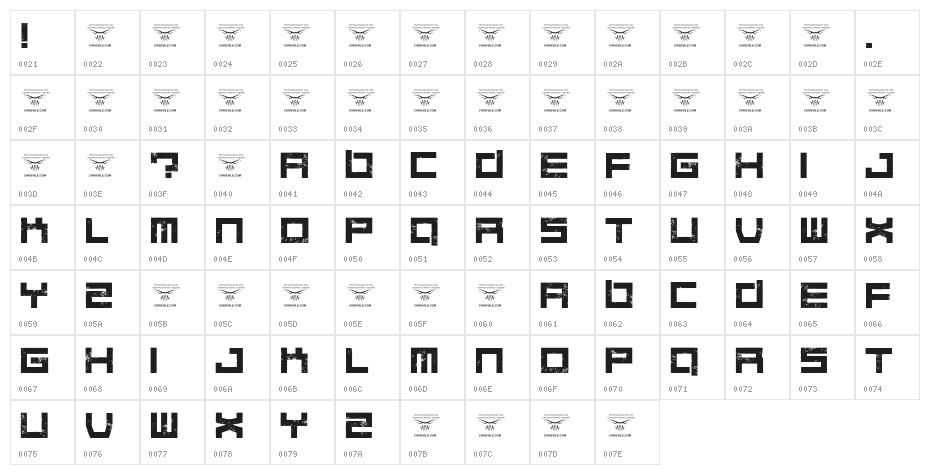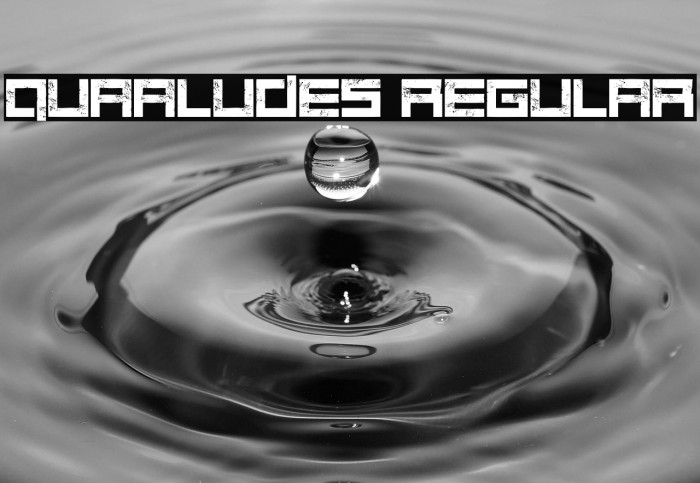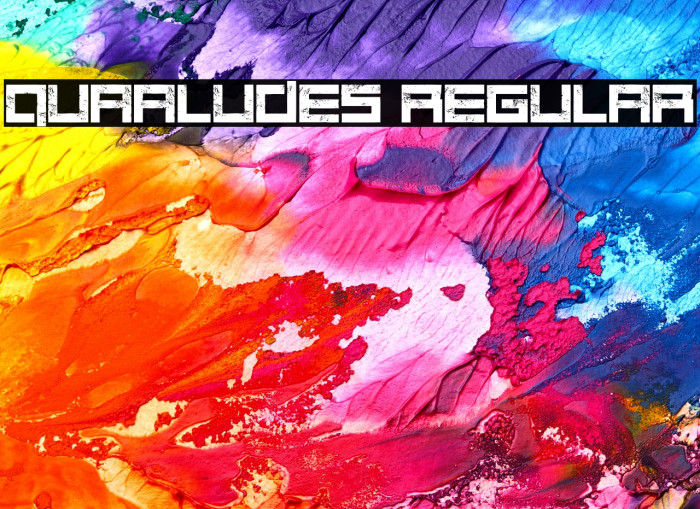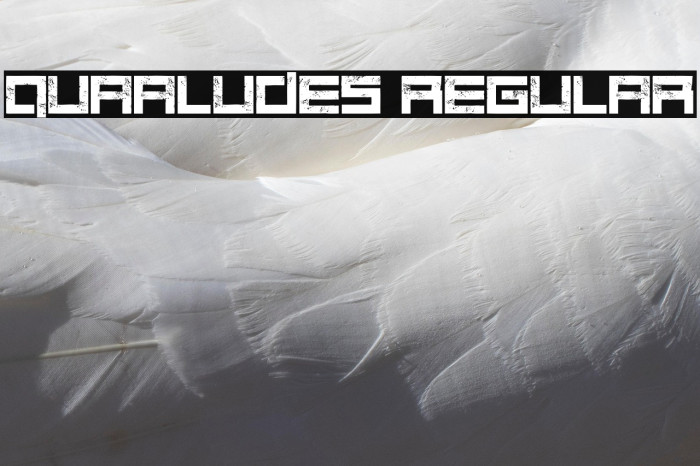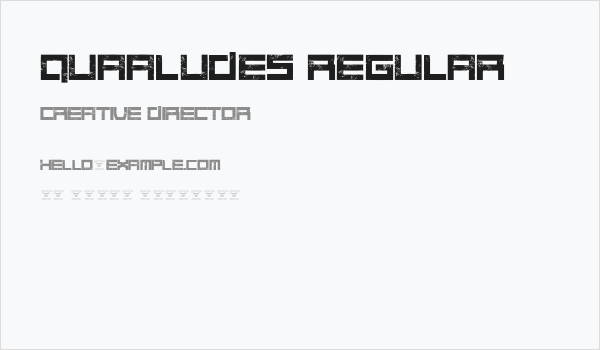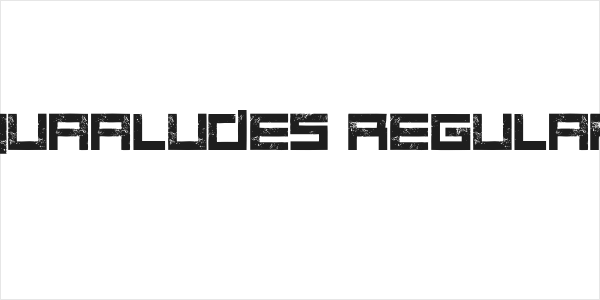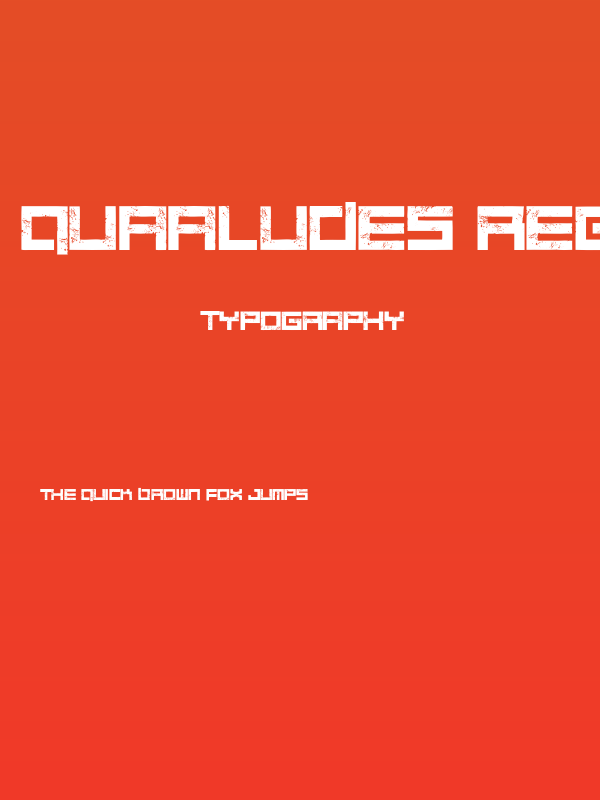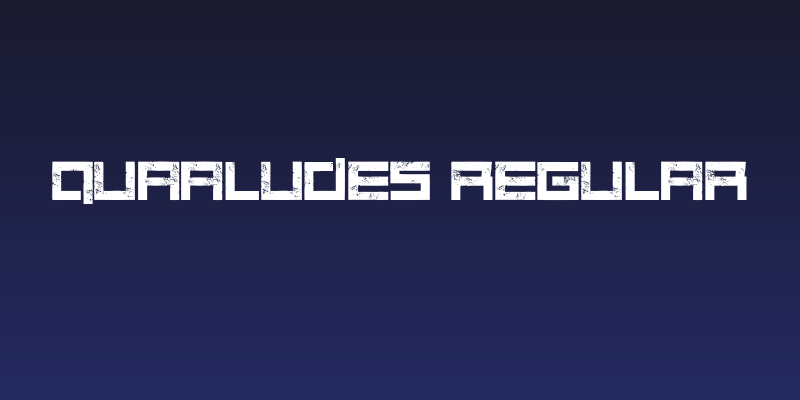
Quaaludes Regular Font
Quaaludes Regular Description
This font features a bold, distressed style with a modern, edgy appearance. The characters have a blocky, geometric form with a rough, textured finish that gives them a worn, grunge look. The uppercase letters are uniform in height, creating a cohesive and structured appearance. The design is reminiscent of urban street art, making it ideal for projects that require a bold and impactful statement. The font's unique texture adds depth and character, making it stand out in any design.
Overall StyleModern, Grunge
Proposed ProjectsIdeal for album covers, posters, urban-themed designs, and branding that requires a bold statement.